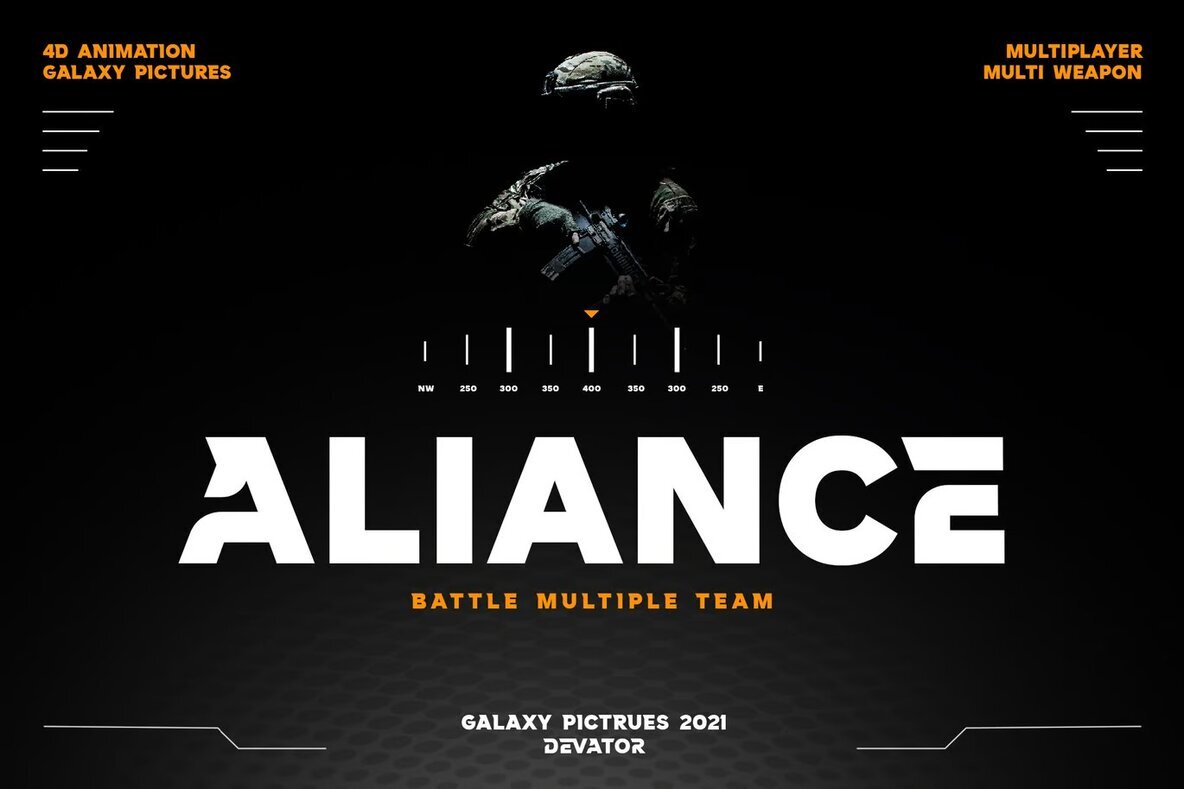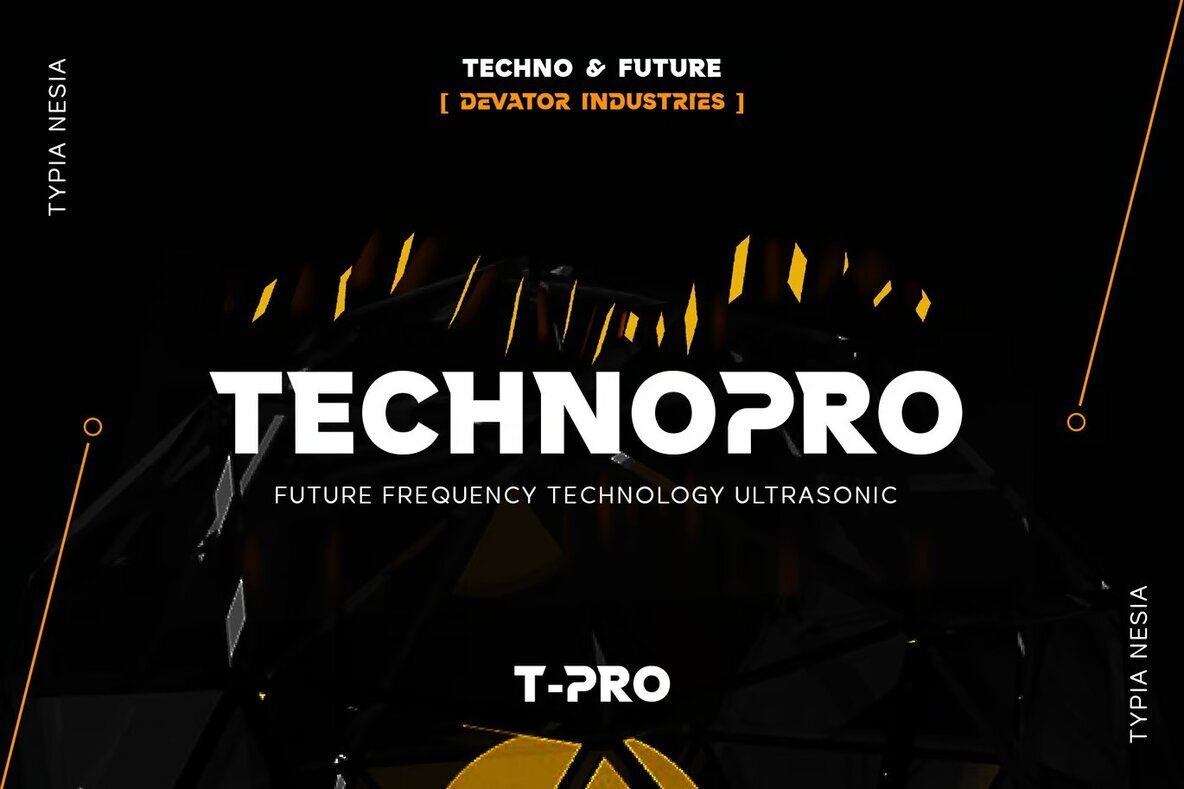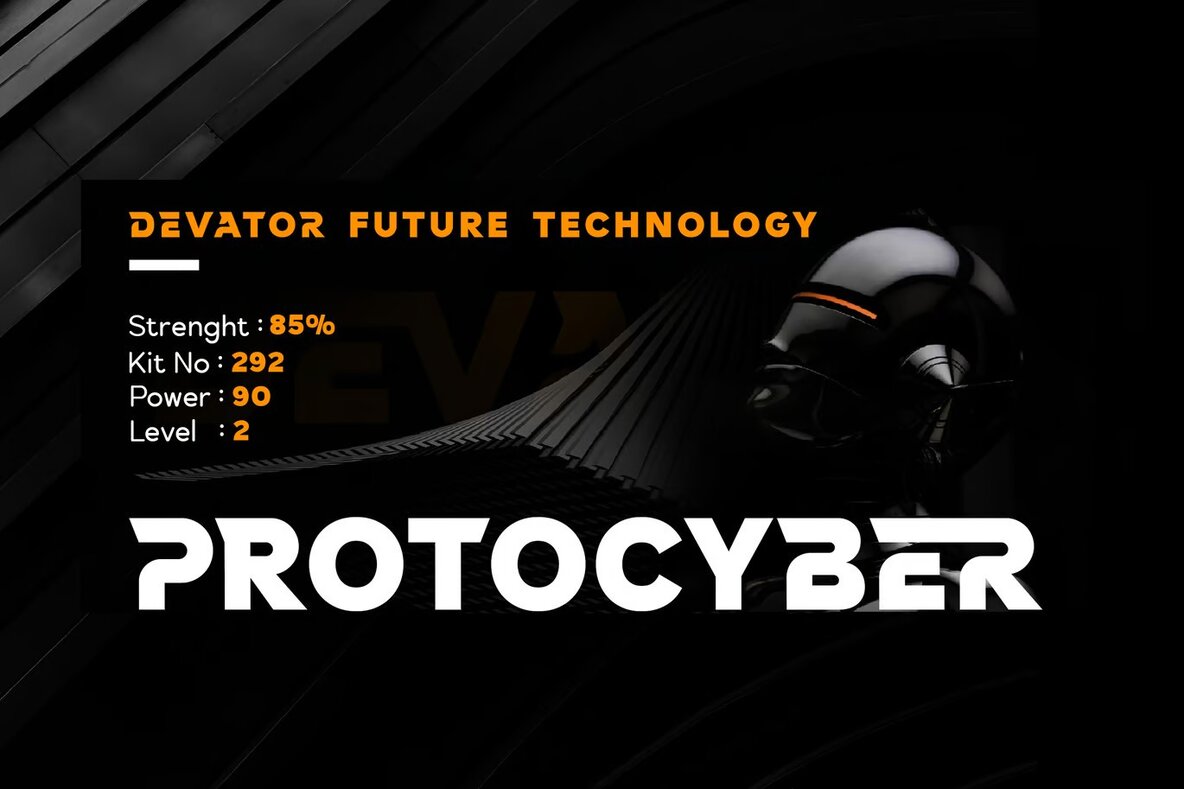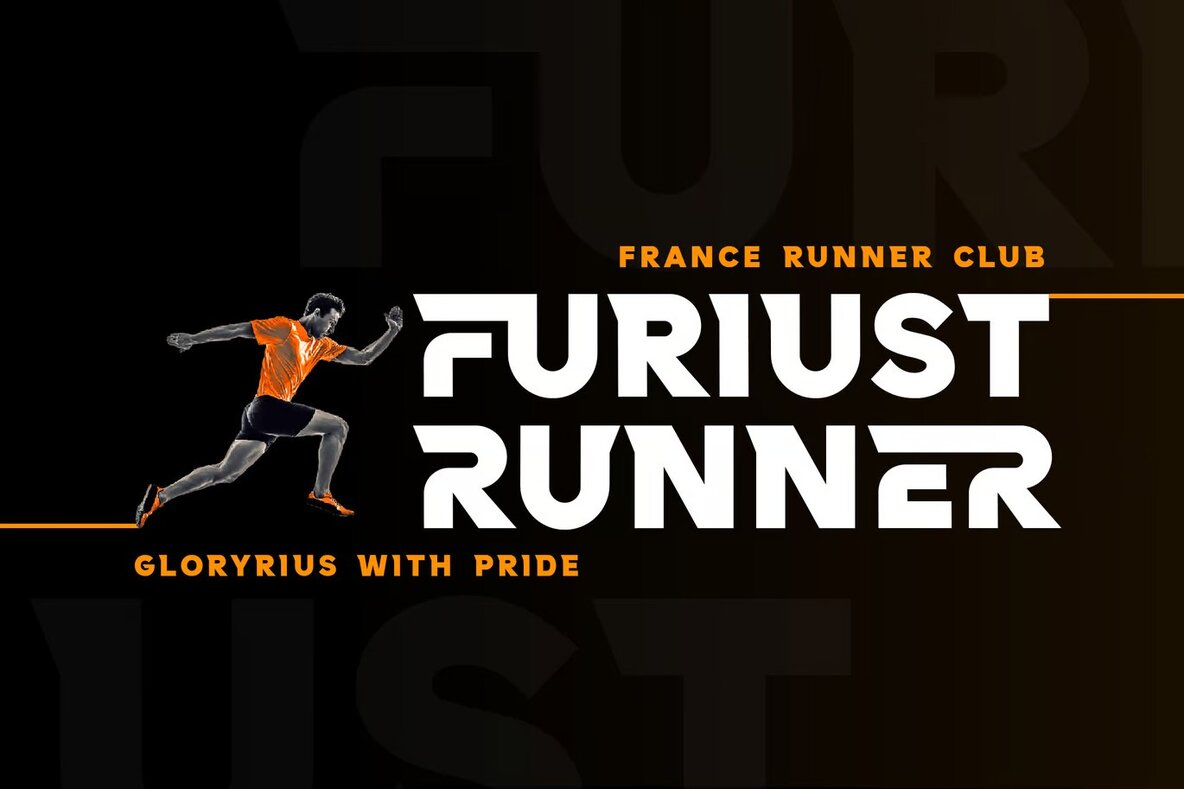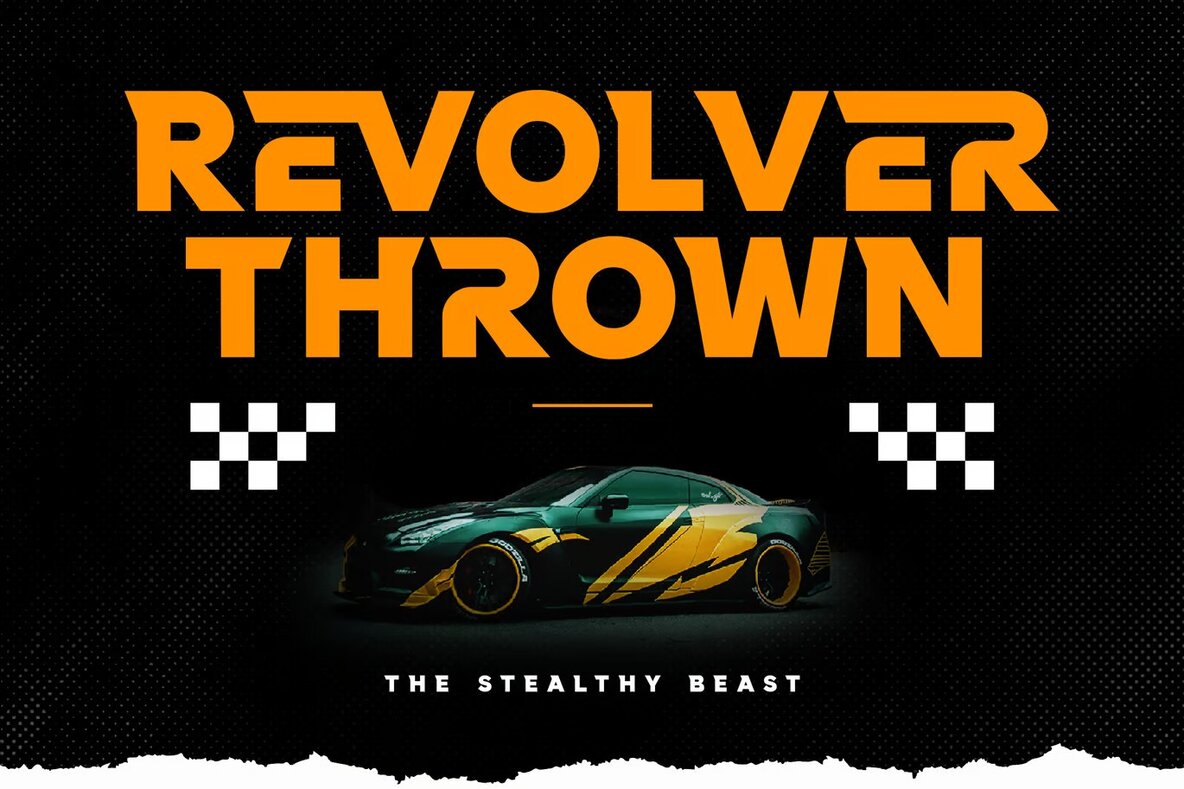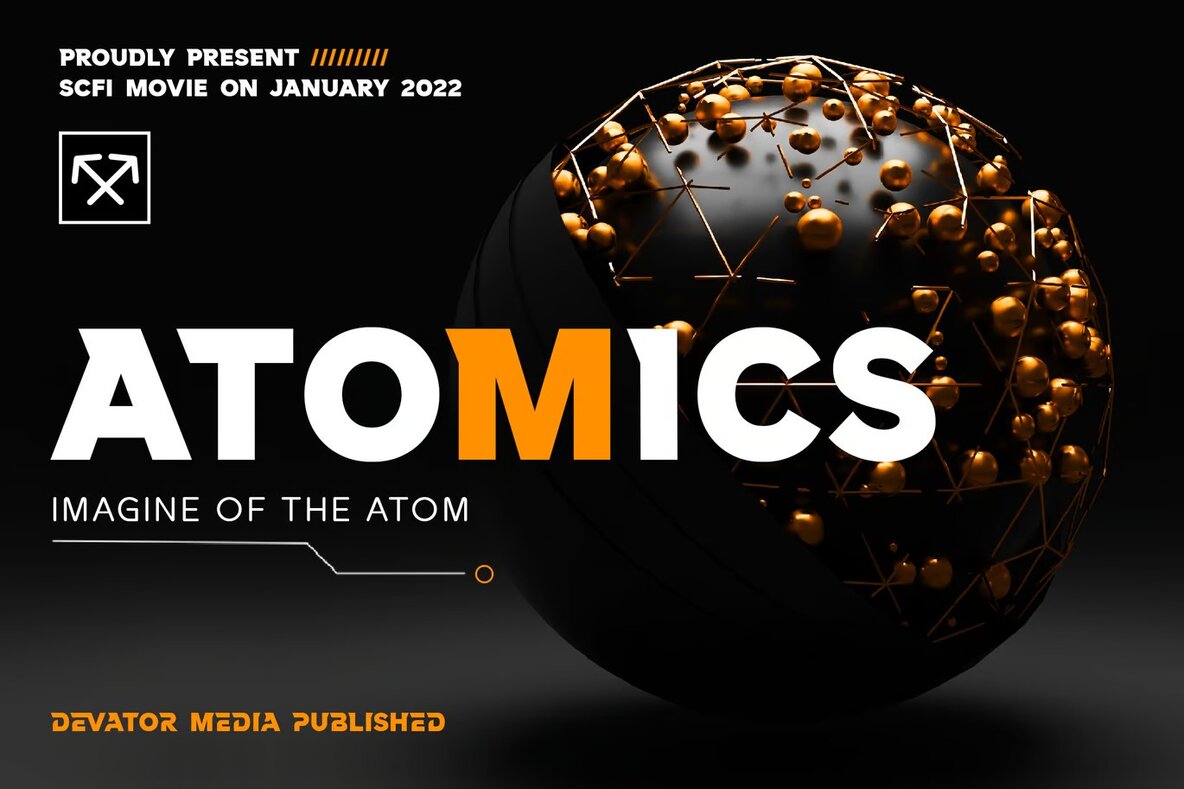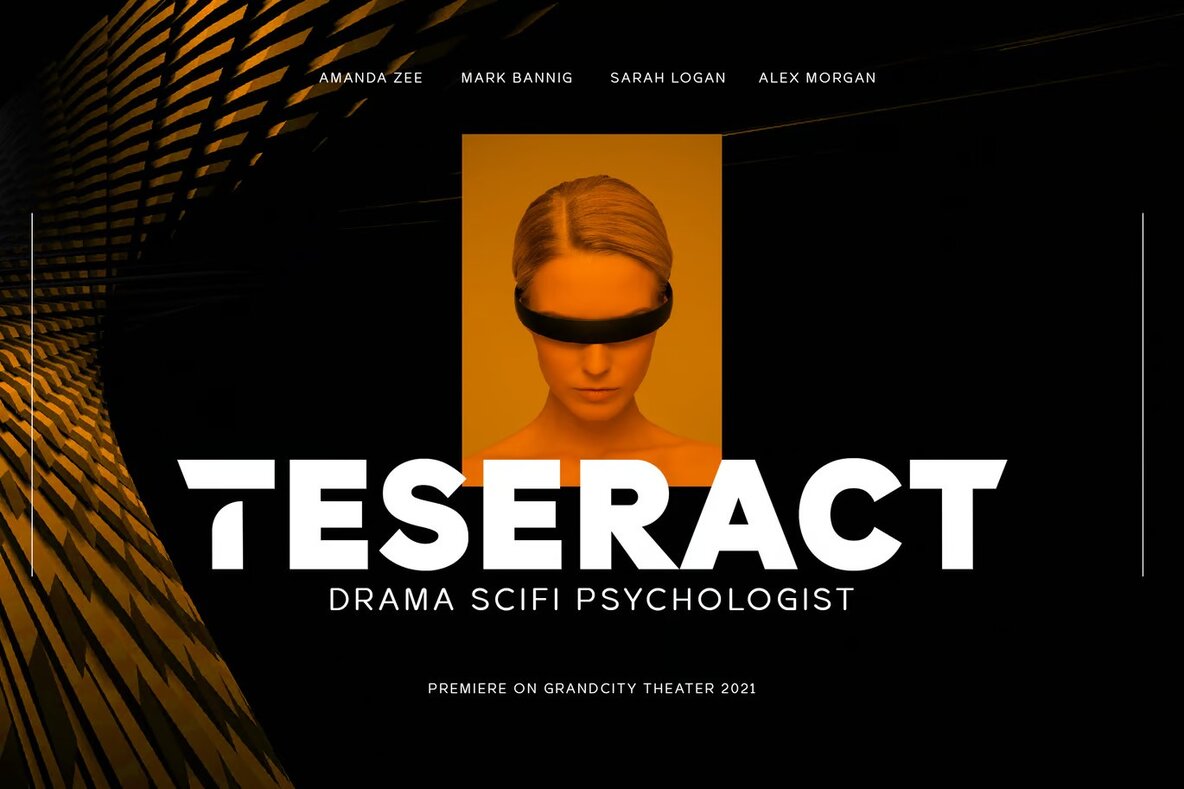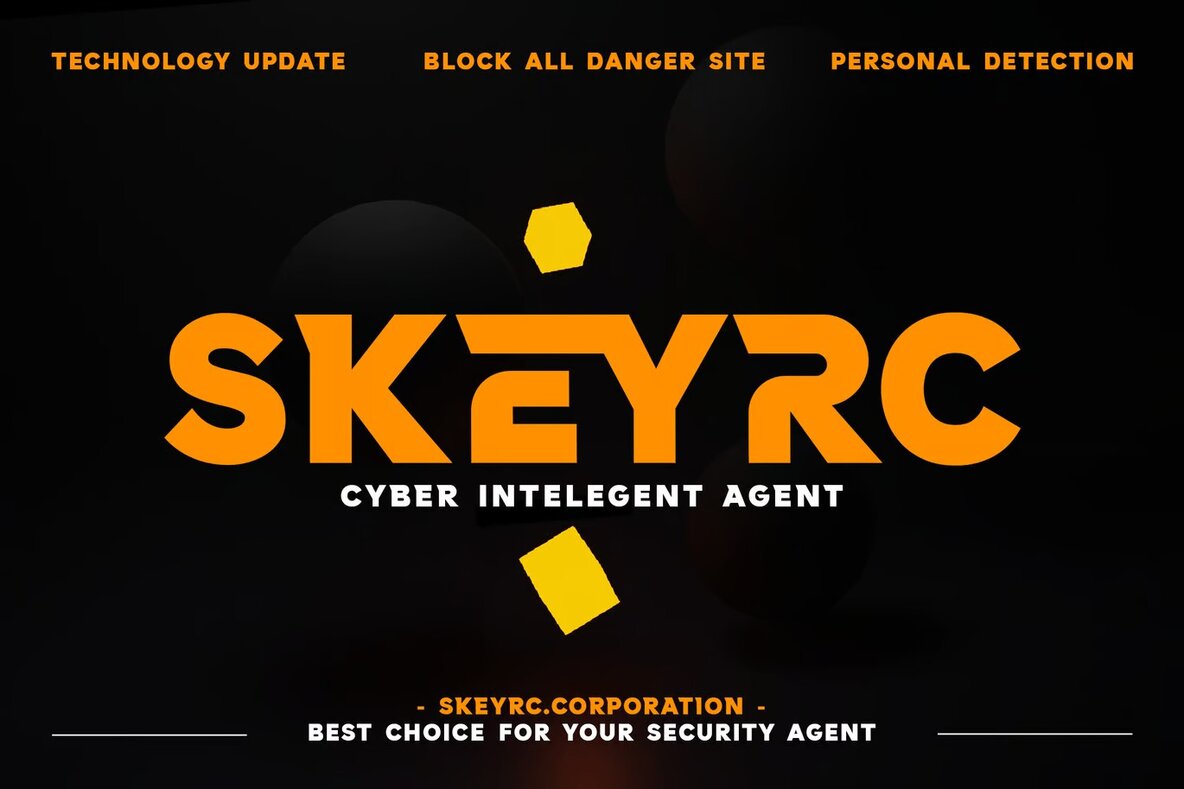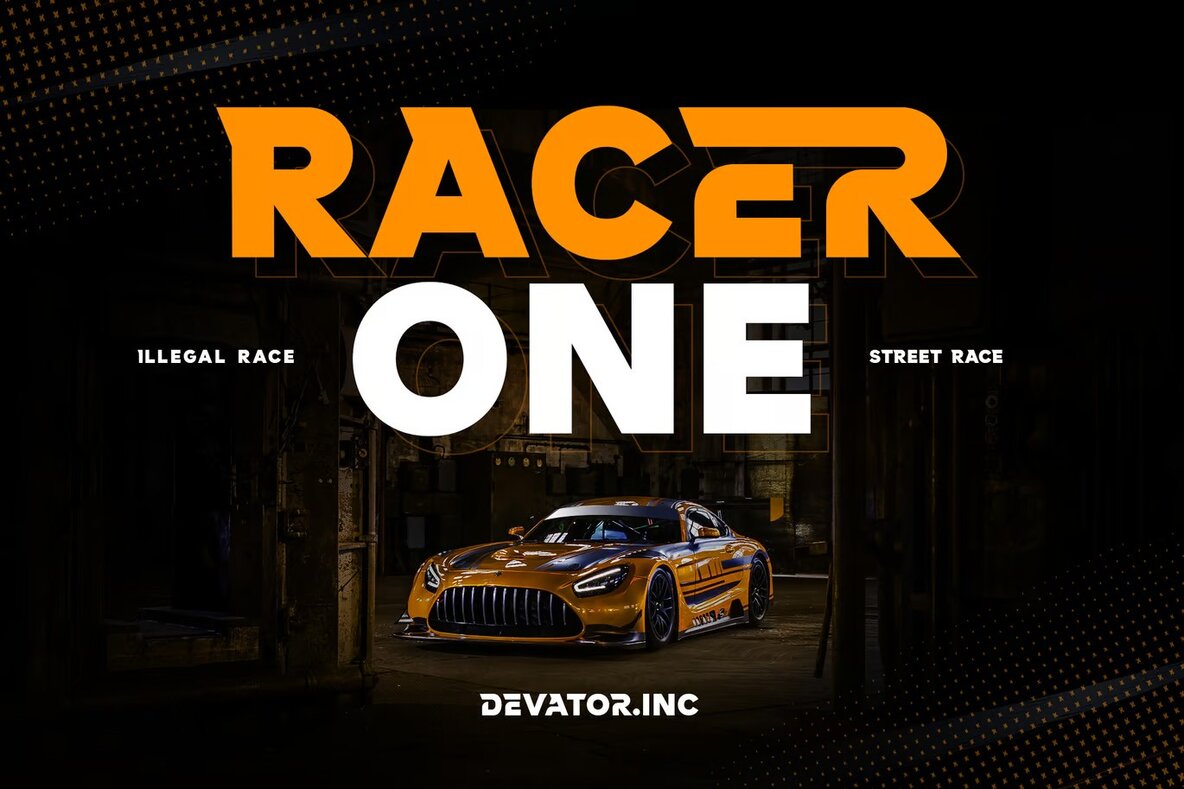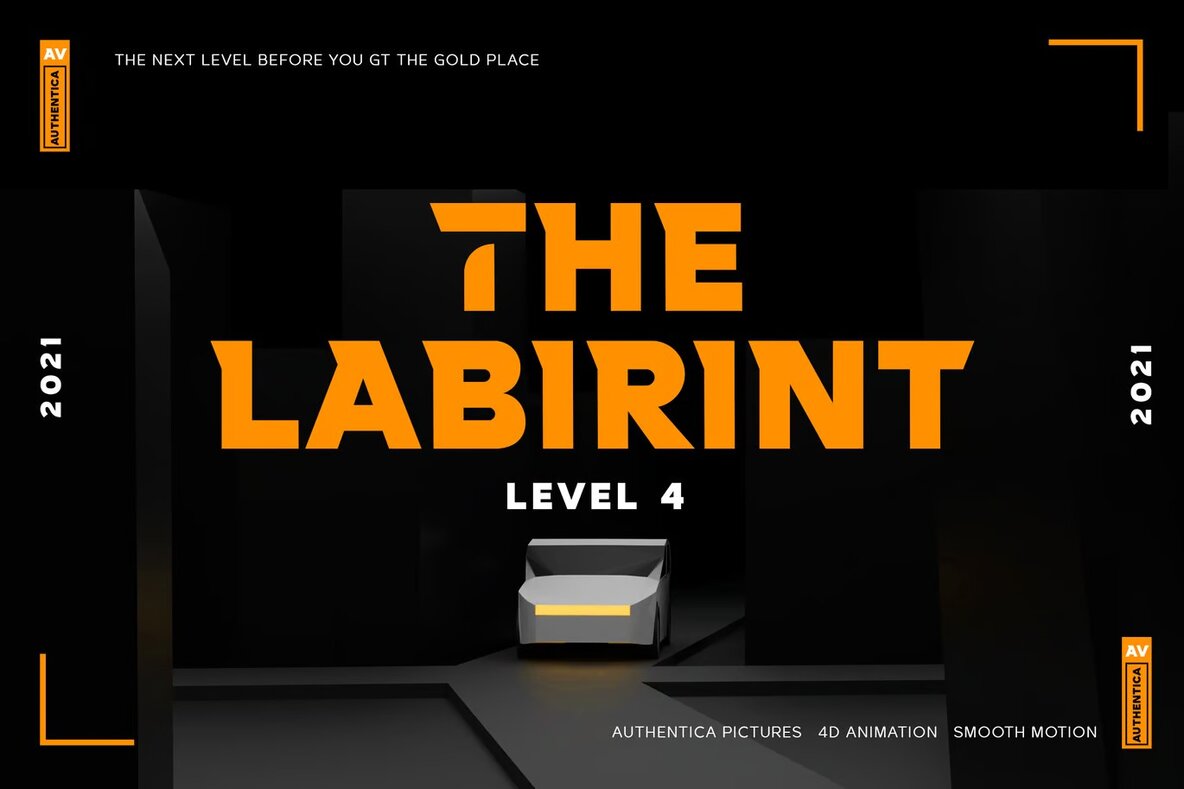
Devator Font
Devator Bold Expanded
Introducing a powerful and dynamic display font, perfect for enhancing your next design project. This all-caps black bold sans serif font is designed with modern military, sci-fi, and sports elements in mind, making it ideal for the gaming industry and other futuristic design needs. With its robust presence, it serves as an excellent choice for logo branding and editorial design, setting a strong visual foundation for any project.
Whether you're working on esport designs, 80s retro themes, or cutting-edge sport racing visuals, this display font stands out with its striking appearance. It's equally suited for supercar branding, music posters, website designs, and modern advertising campaigns. The versatility extends to crafting book titles, poster quotes, and special event materials, offering a bold statement across a diverse array of visual applications.